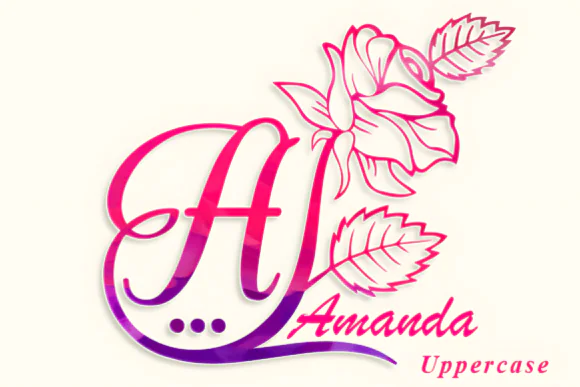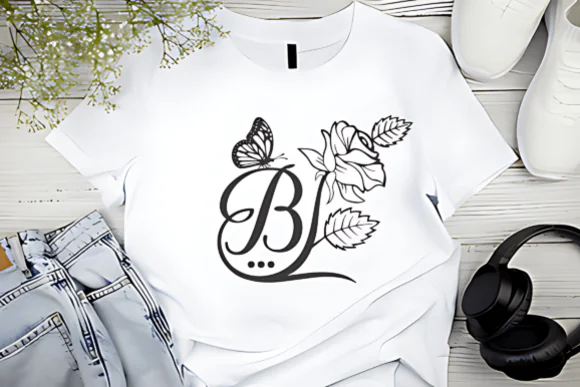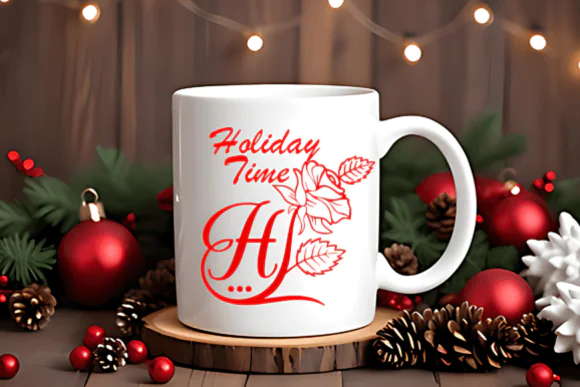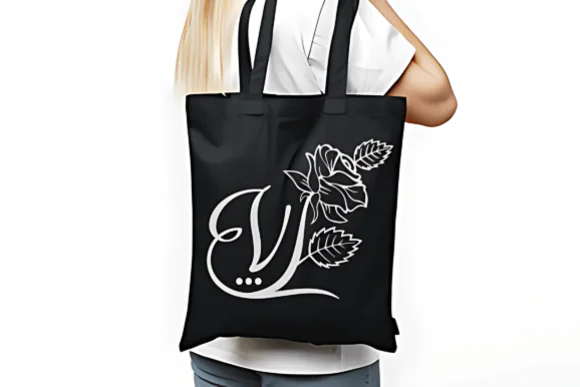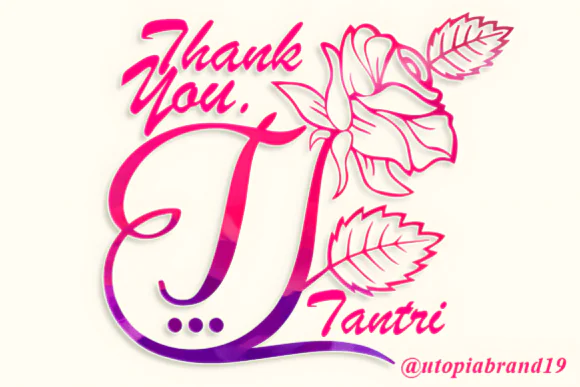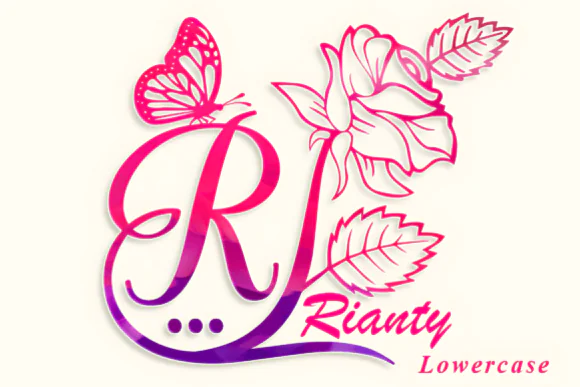
Create graceful, romantic, and beautifully decorated typography with Beauty Flower Monogram Font, an elegant decorative font featuring lovely floral-style ornaments. With its authentic artistic feel and refined monogram look, this font is perfect for creative projects that need beauty, charm, and a soft feminine touch.
Beauty Flower Monogram is ideal for designers, crafters, wedding stationery creators, small business owners, invitation makers, branding designers, and digital product sellers who want to create elegant and eye-catching designs. It works beautifully for wedding invitations, save-the-date cards, greeting cards, thank-you cards, bridal shower designs, social media posts, logos, monograms, stickers, labels, packaging, wall art, and printable stationery.
Its decorative ornament details make every letter feel stylish and expressive, helping your projects look premium, romantic, and professionally designed. Whether you are creating a floral wedding monogram, elegant stationery set, boutique logo, romantic greeting card, or beautiful social media graphic, Beauty Flower Monogram Font adds a charming and graceful finish to your design.
This font is especially suitable for wedding themes, feminine branding, floral artwork, romantic designs, handmade products, and elegant printable projects.
Key Style Features